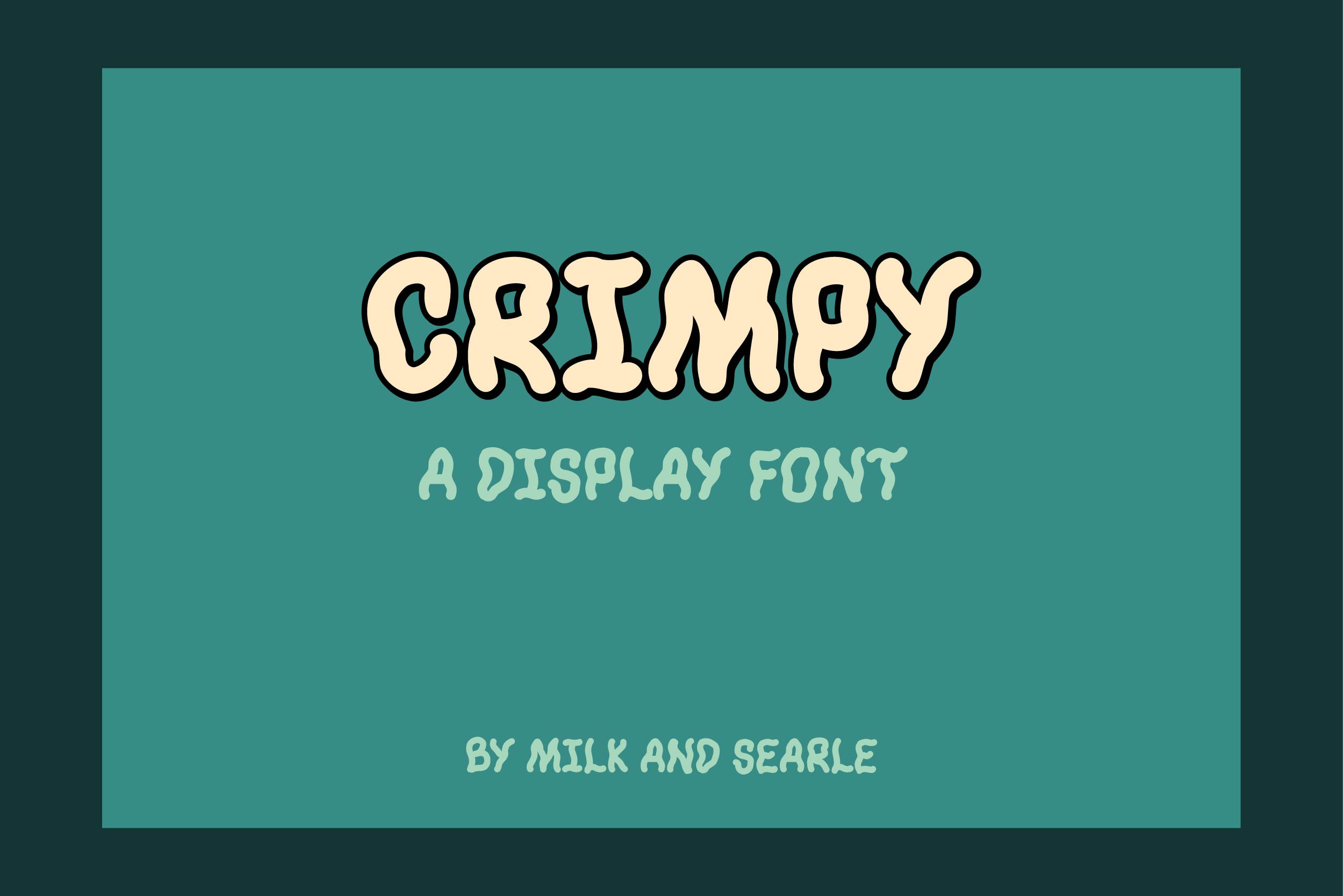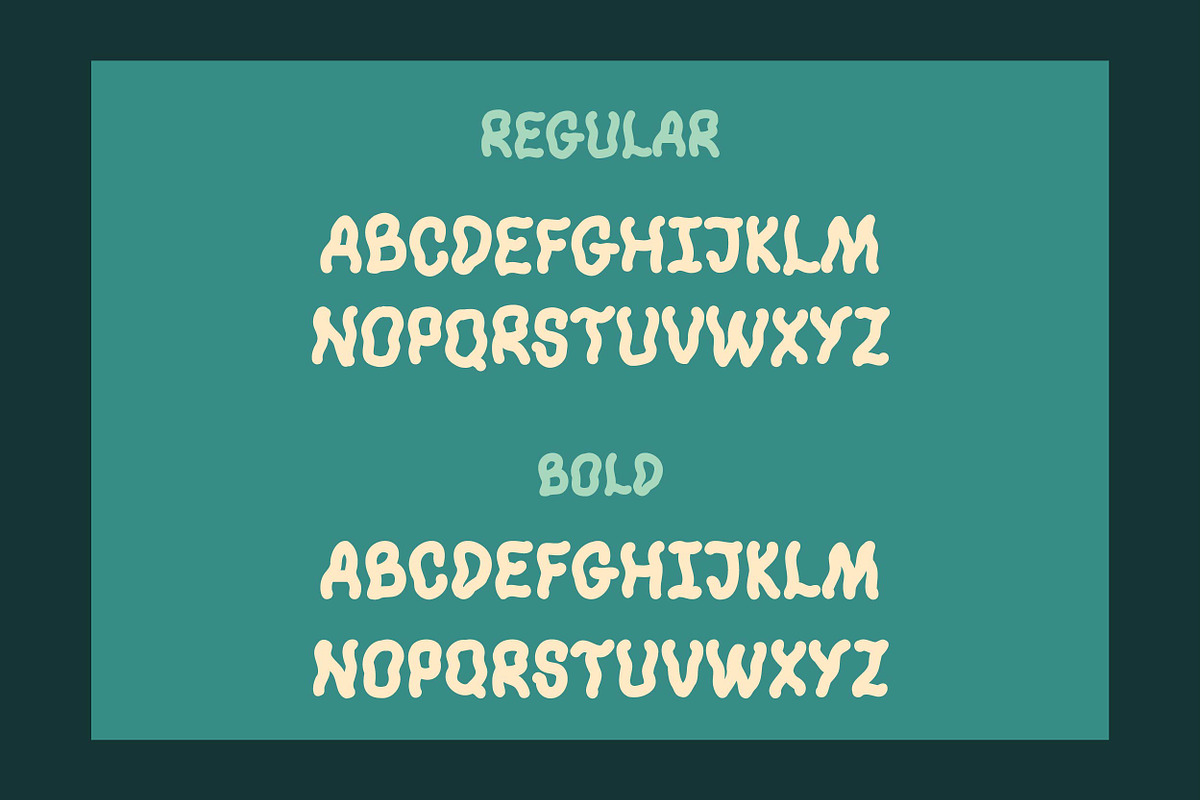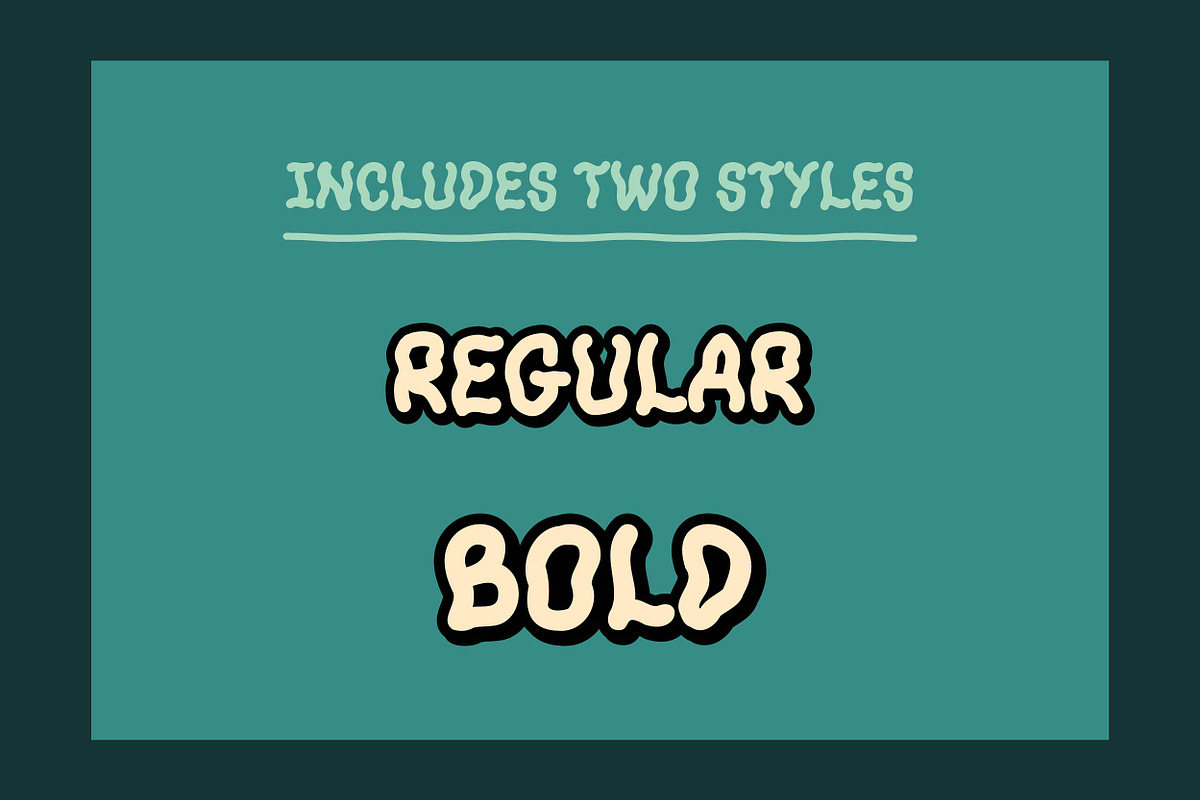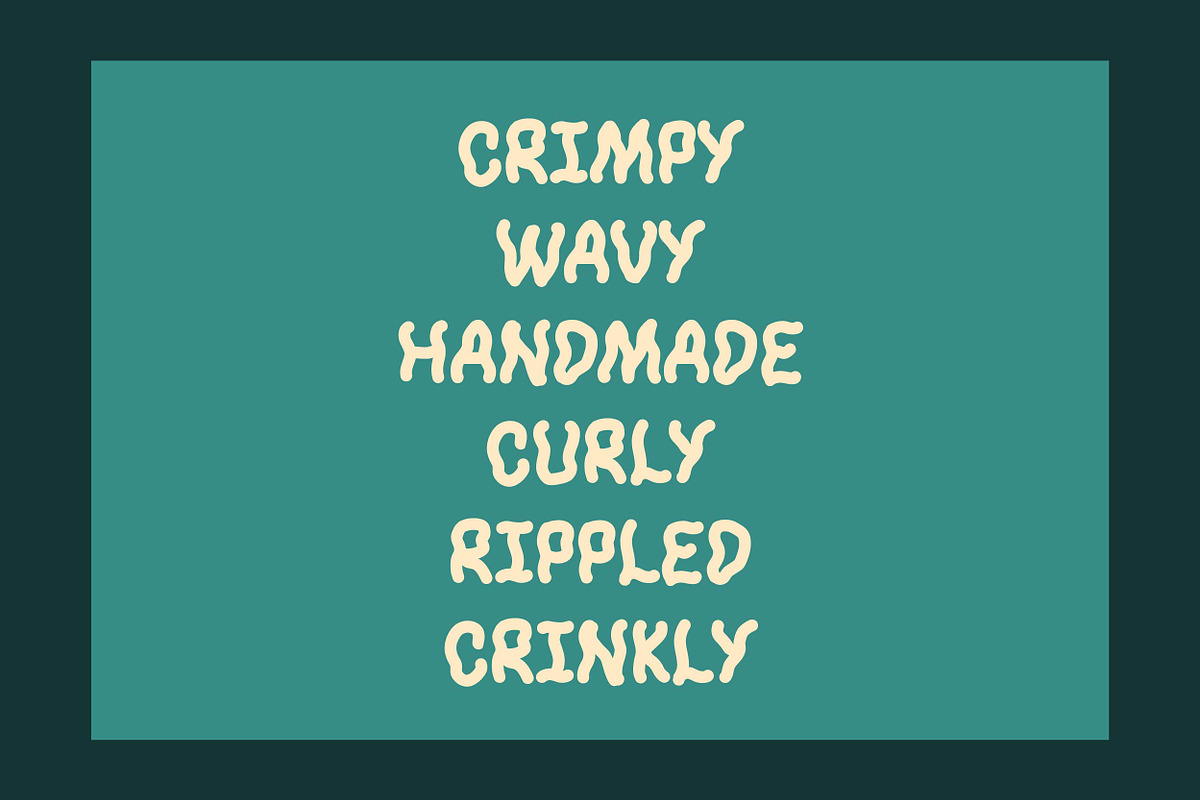
Crimpy - A wavy, crinkly font
Crimpy is a fun, handmade, wavy font that will be sure to take your designs to the next level!
Includes a regular family as well as a bold family. Each family includes uppercase letters A-Z.